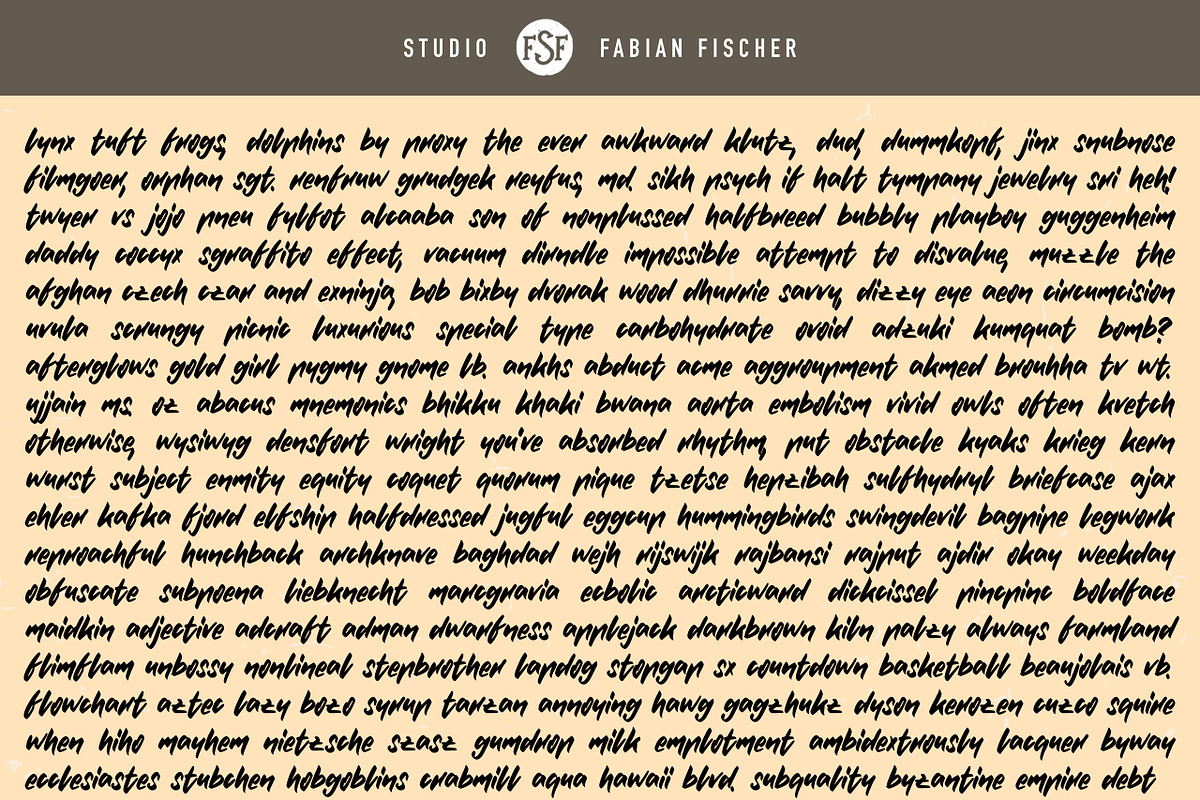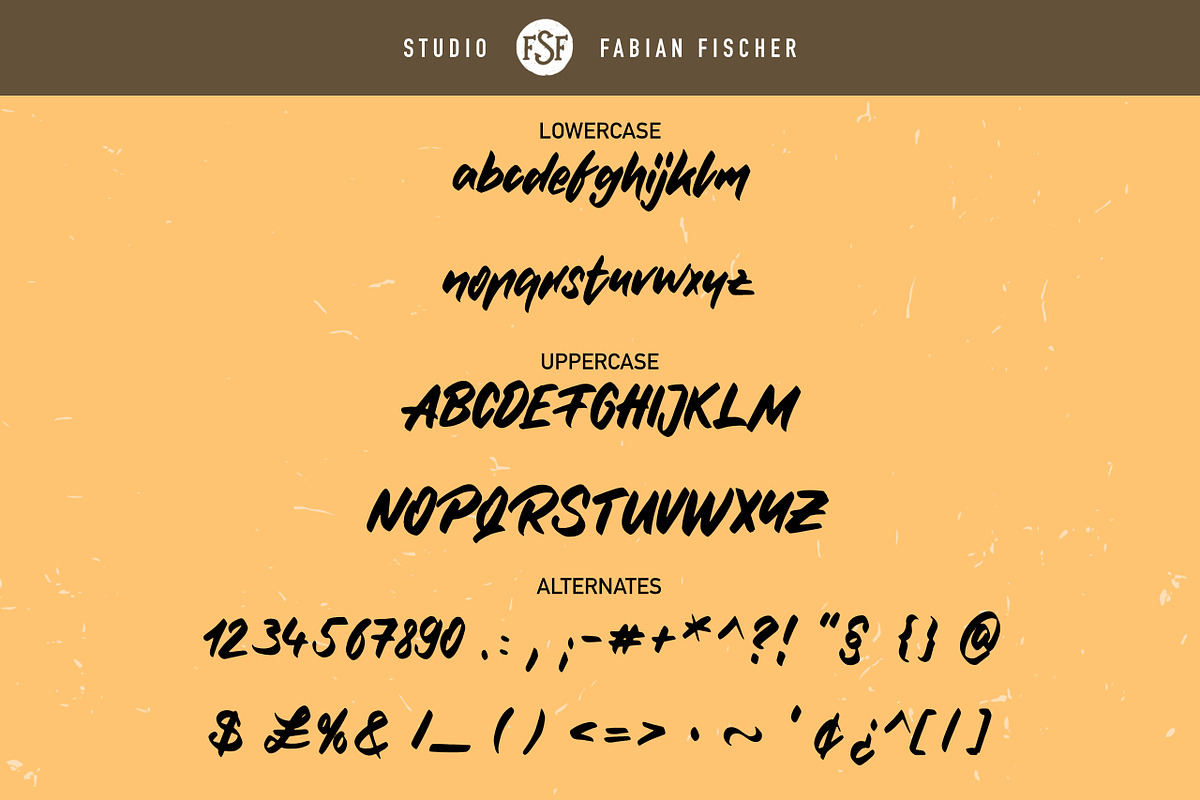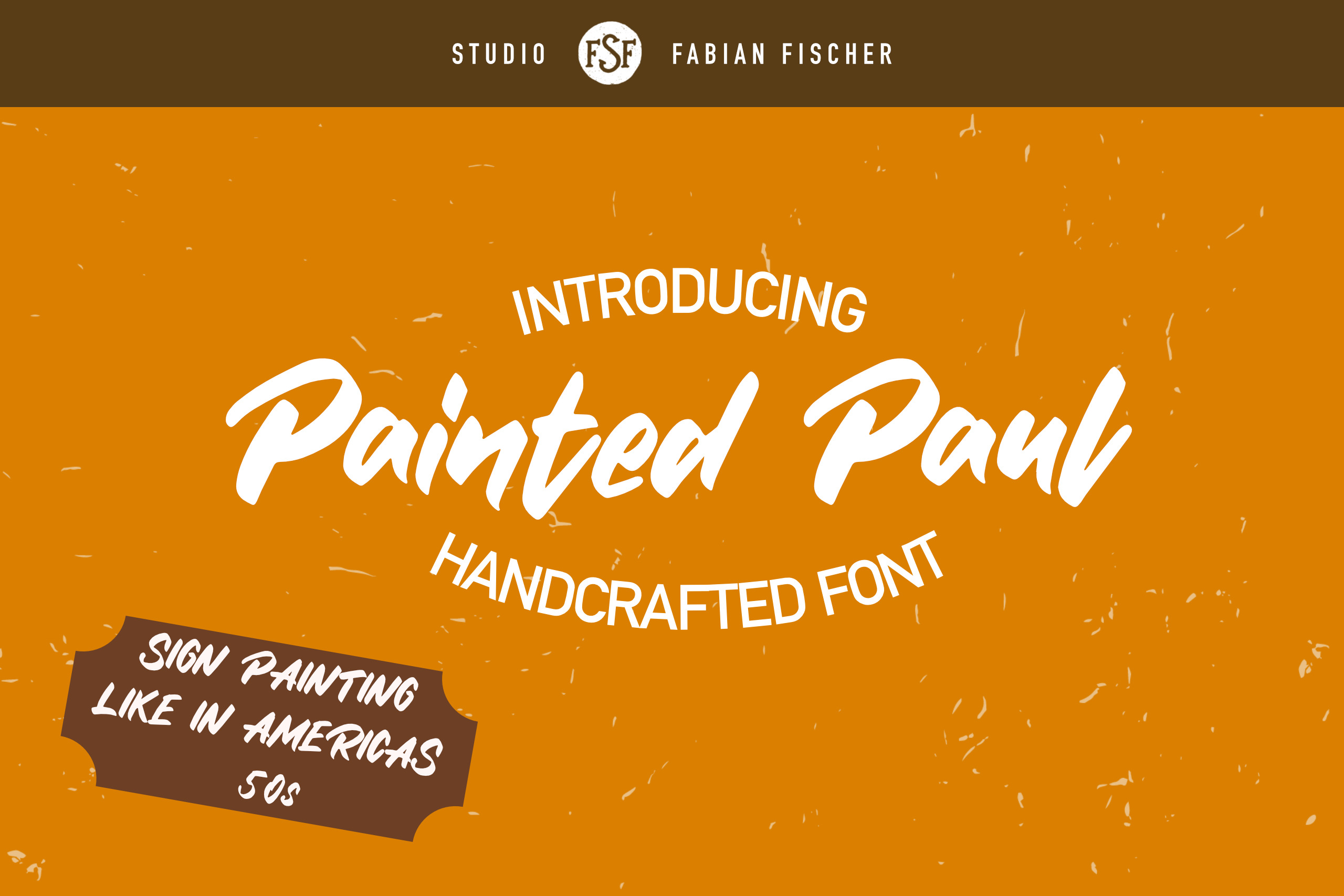
Painted Paul - Handmade Font
Painted Paul is a handcrafted typeface inspired by signage and sign painting in Americas 50s. As a display typeface Painted Paul is suitable for logotypes, signs, posters, product designs, print and digital ads, branding and many more.